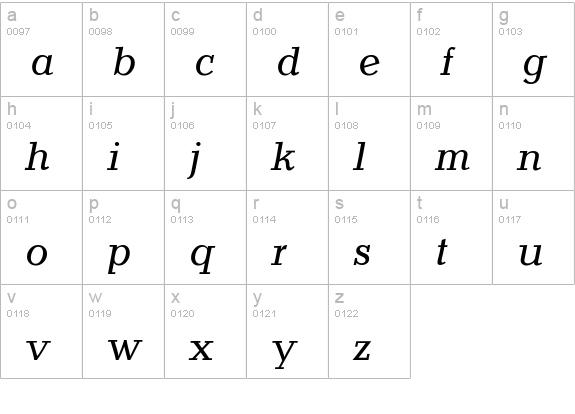
Quantity-Italic Font Details
Quantity-Italic is a distinctive, italic variant in the Quantity typeface family \xE2\x80\x94 well suited to design and typography projects.
Quantity-Italic font is a sleek and modern typeface that exudes sophistication and elegance. With its slanted and italicized design, this font adds a touch of style and flair to any project. The unique curves and angles of Quantity-Italic make it stand out from other fonts, making it perfect for creating eye-catching designs. What's even better is that Quantity-Italic is available for free download at FontsMarket.com! This means you can easily access and use this stunning font in your projects without any cost. Whether you're designing a logo, creating promotional materials, or working on a website, Quantity-Italic is sure to make a statement and leave a lasting impression. Download it today and elevate your design projects with this beautiful and versatile font.